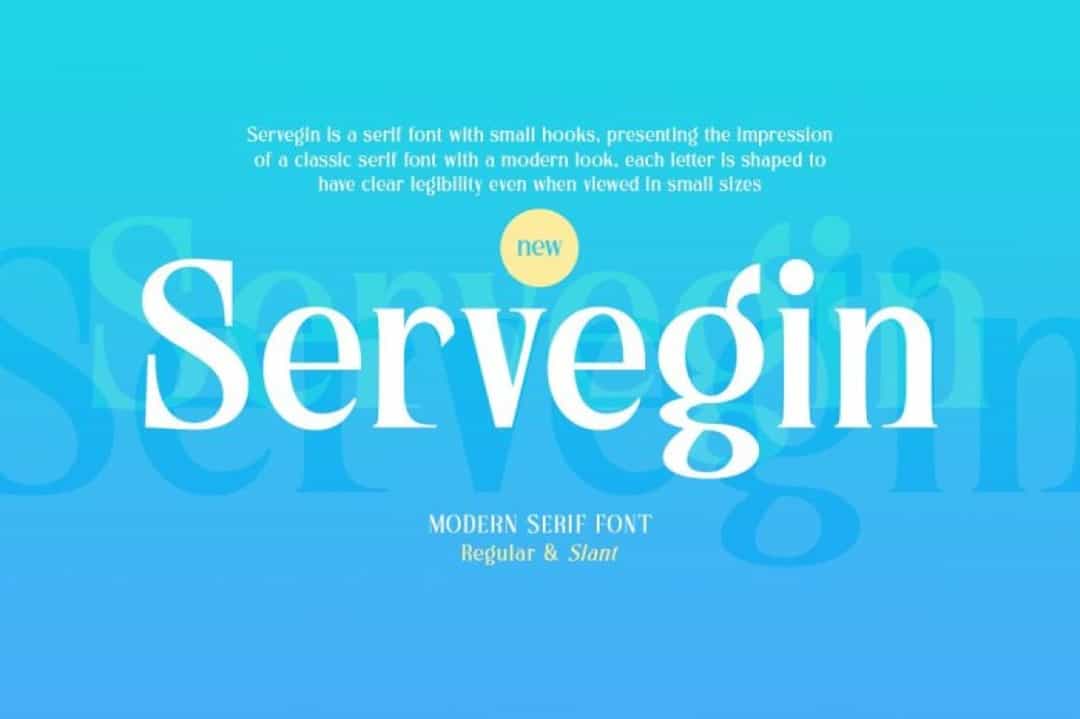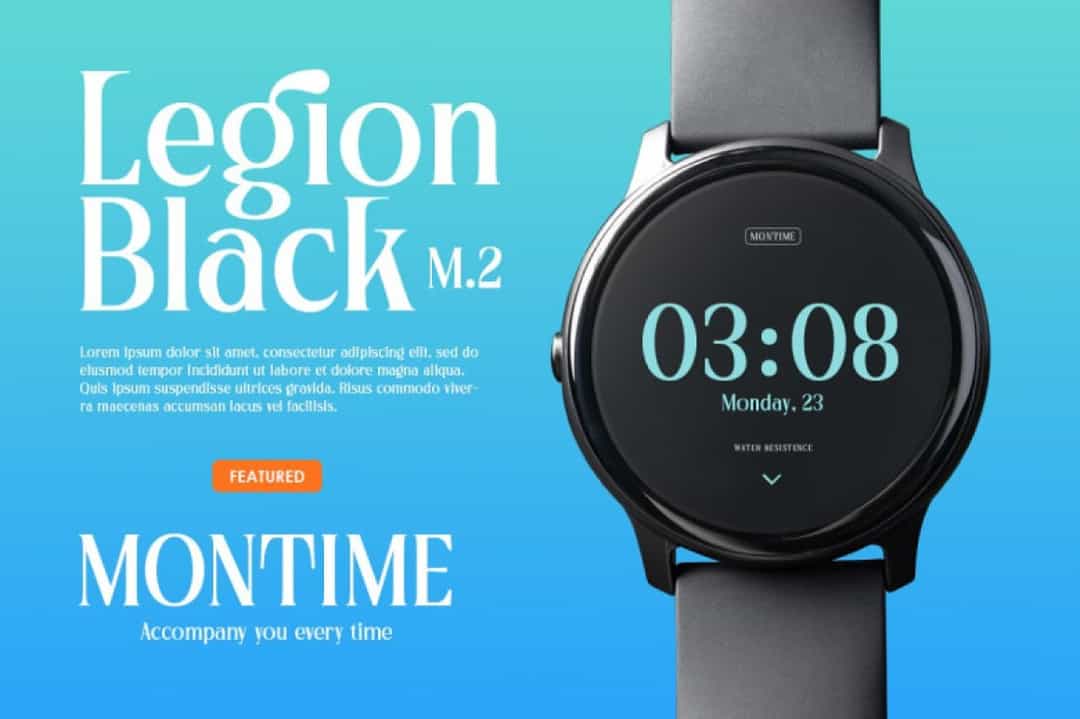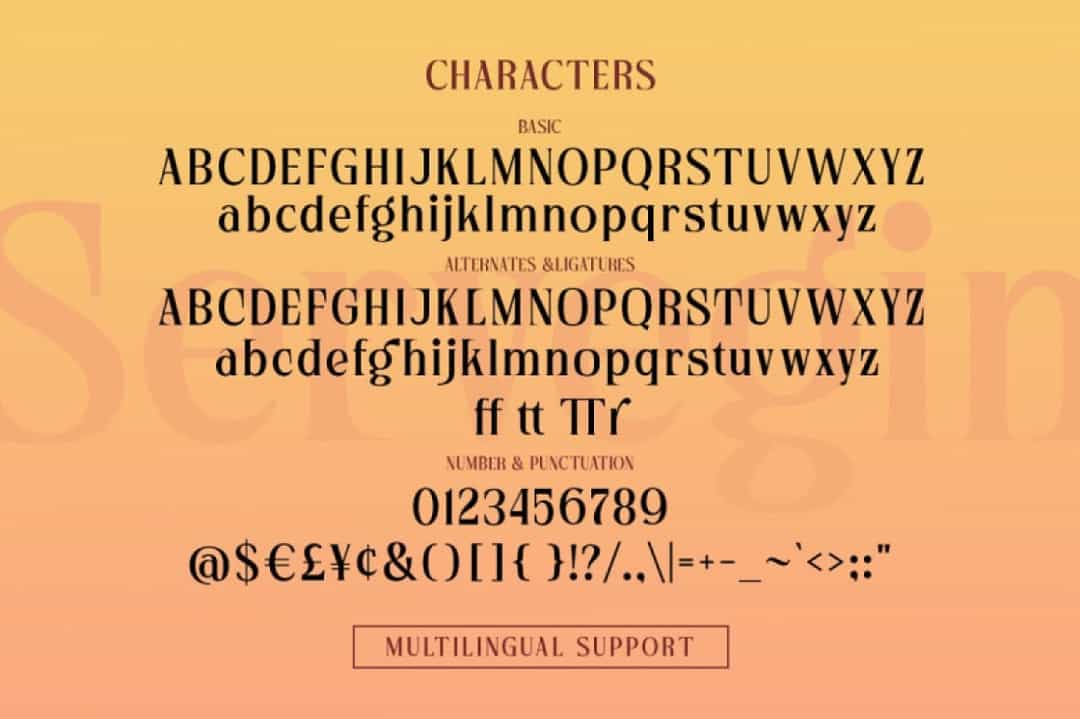
Servegin, an elegant modern serif font from, is versatile enough for use in both modern and vintage designs, perfect for logos, headlines, titling and formal invitations and labels as well as magazines, logos or books, greeting / wedding cards packaging fashion makeup books stationery labels or advertising purposes.